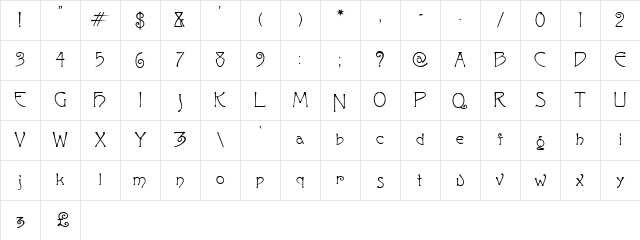
Curetana Regular Free Font
Curetana Regular
Design Context for Curetana
Curetana is a composed and adaptable typeface that performs quietly and consistently across a wide range of design contexts.